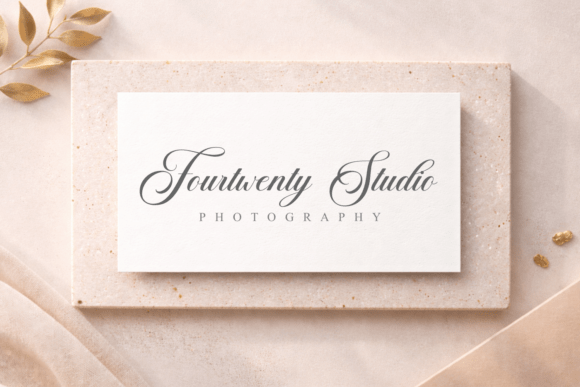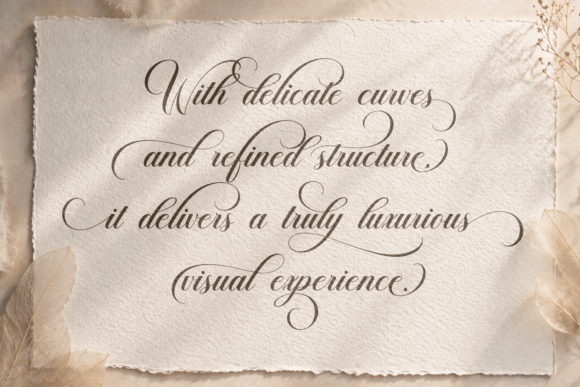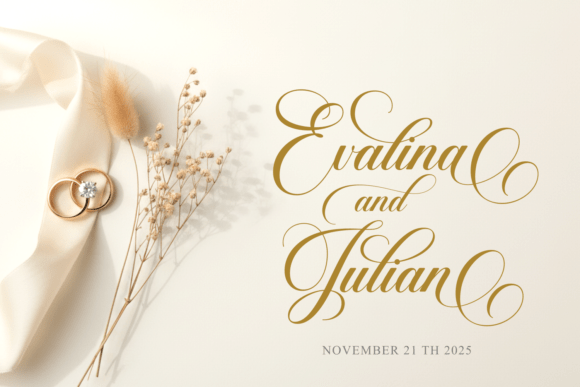
Introduction to Marginale Font
Have you ever stumbled upon a design element that instantly elevates your entire project? For many designers, that moment of serendipity comes when they discover a font that perfectly captures the essence of their creative vision. For those seeking a timeless and luxurious feel, the Marginale Font is sure to be a game-changer. This exquisite calligraphy script boasts delicate curves and refined strokes, making it the perfect addition to any high-quality design project.
Whether you’re crafting a wedding invitation, developing a brand identity, or creating a logo, the Marginale Font brings a sophisticated charm that’s sure to leave a lasting impression. Its flowing letterforms and stylish swashes make it effortlessly beautiful and highly versatile, allowing designers to add a touch of elegance to any design element, from labels and invitations to websites and quotes.
Key Features of Marginale Font
- Unique, modern font with a transparent background, ideal for web design and digital applications.
- Perfect for designers looking for a modern, high-quality font to enhance their creative projects.
Honest Review: Marginale Font
I recently had the chance to work with Marginale Font on a creative project, and I must say it’s been a great addition to my design resource library. The font is available for a free download, which is always a plus when you’re on a tight budget. Plus, the transparent background makes it super easy to use in various design scenarios.
What works well with Marginale Font is its versatility. It’s suitable for a wide range of creative projects, from logos to brochures, and even web design. The font’s modern and sleek design makes it perfect for creating a professional and high-quality look.
- ✨ Modern and sleek design
- ✨ Versatile and suitable for various creative projects
One of the limitations I’ve noticed with Marginale Font is its limited character set. It doesn’t have as many characters as some other fonts, which can be a bit of a pain when you need to use special characters or accents.
Overall, I’d say Marginale Font is a solid choice for designers looking for a high-quality, free font. Just be aware of its limitations, and you’ll be good to go!
- ⚠️ Limited character set
- ⚠️ May not be suitable for projects requiring complex typography
The Marginale Font is a high-quality, versatile design resource perfect for any creative project. Its transparent background and sleek design make it an ideal choice for various applications.
The Marginale Font is suitable for various creative projects, including:
- Social media graphics and ads
- Presentations and reports
- Logos and branding materials
- Editorial content and publications